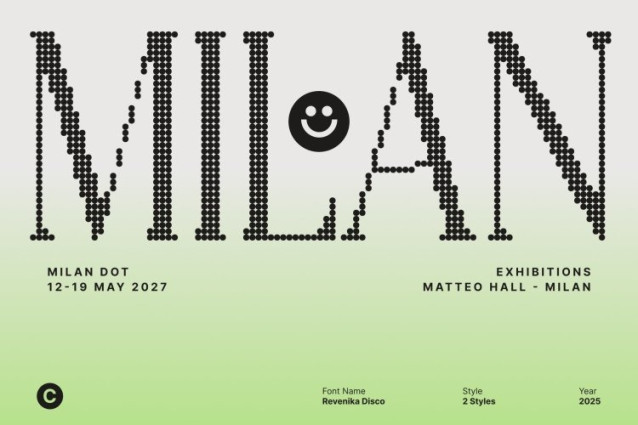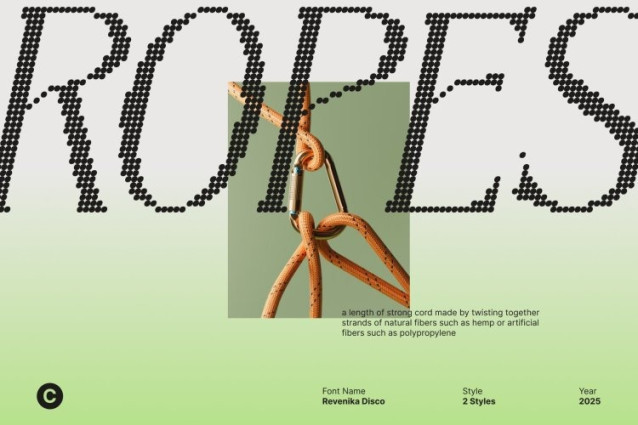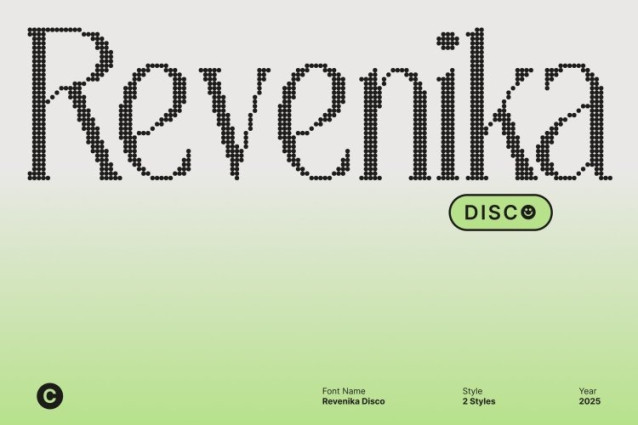
Revenika Disco Font This is a slim modern serif font designed to bring refined elegance and confident sophistication to your visuals. Its clean minimal shapes create a sleek and polished appearance, while its graceful long serifs extend with poise, delivering a delicate yet impactful presence.
Graceful Long Serifs for Striking Definition
The elongated serifs of this font add dramatic flair and timeless charm. These refined extensions enhance the rhythm of the typography, giving your text a graceful silhouette that stands out effortlessly. The slender form works harmoniously with the extended details to create a font that feels luxurious, modern, and beautifully expressive.
Disco Shimmer for Stylish Visual Energy
What sets this font apart is its subtle disco shimmer an energetic touch that injects personality into its minimalist structure. This shimmering vibe introduces a playful but stylish edge, giving your designs a sense of movement and contemporary glamour.
Ideal for Modern Branding, Posters, and Headlines
This font excels in modern branding, editorial layouts, and eye-catching posters. Its slim form and stylish details make headlines appear sharp, refined, and full of character. Use it for fashion branding, lifestyle campaigns, event graphics, or any design that demands sophistication with a hint of disco-inspired sparkle.